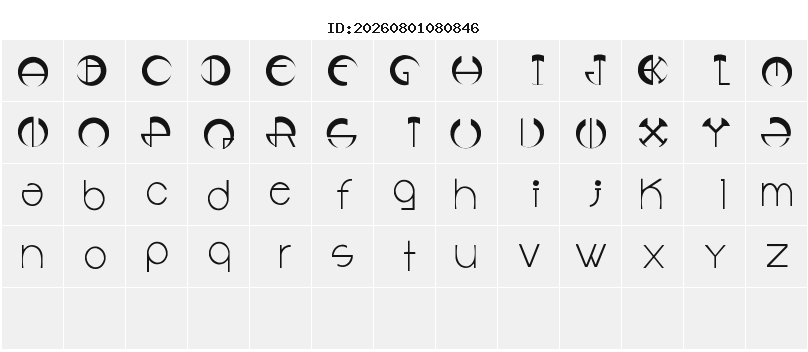
• Font Name: LMS DaQ's Circle of Love
About LMS DaQ's Circle of Love.ttf
LMS DaQ's Circle of Love.ttf is a modern, elegant sans-serif font designed for ultimate readability and visual harmony. Perfect for branding, headlines, web design, and print materials.